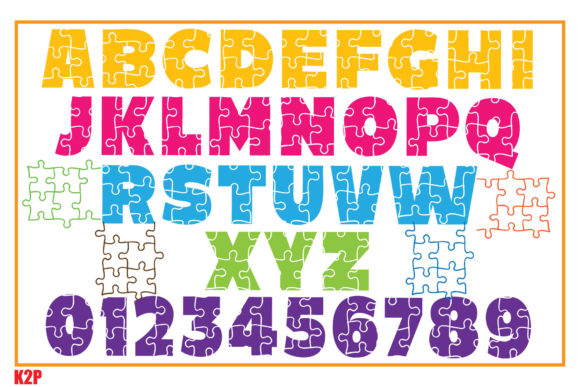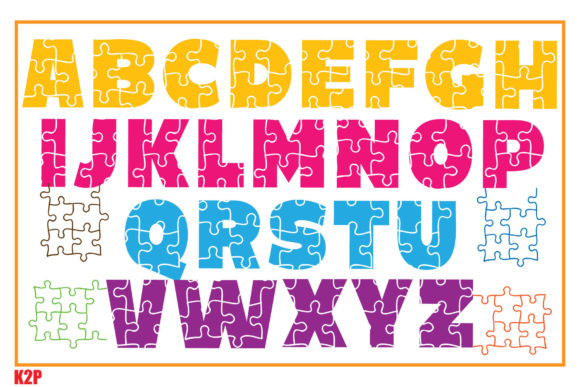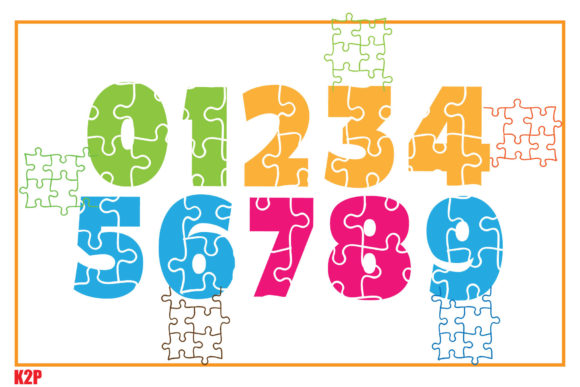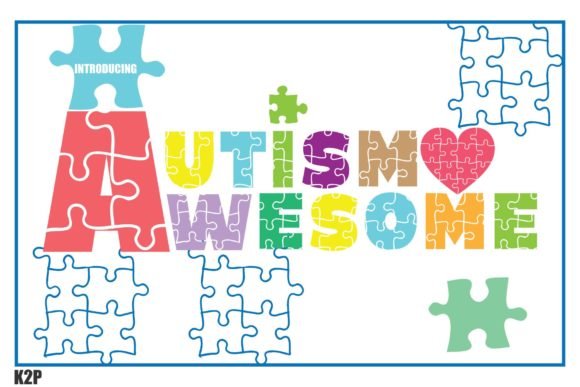
Introduction to Autism Awesome Font
Autism Awesome is a thick lettered and incredibly unique decorative font.
It can be used for various design ideas, particularly those related to the projects that seek to bring support to people that are suffering from autism This font is PUA encoded which means you can access all of the glyphs and swashes with ease.
Key Features of Autism Awesome Font
Why Choose Autism Awesome Font?